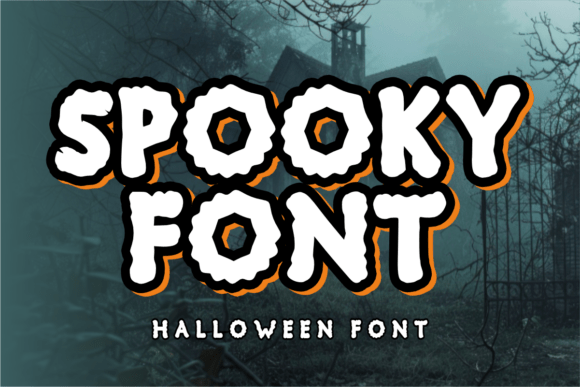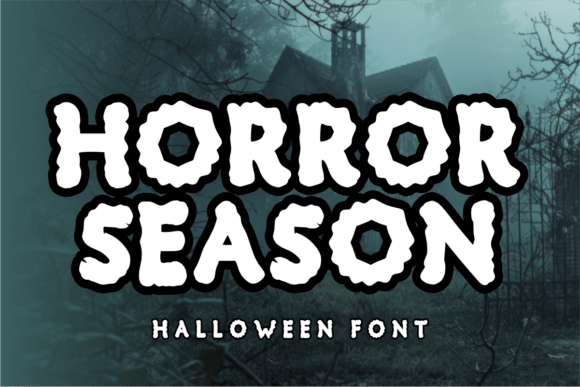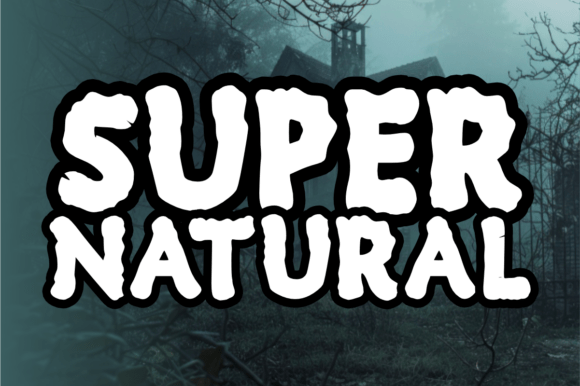
Introduction to Black Spirit Font Font
Fonts play a crucial role in design, and the Black Spirit Font font is a typeface that brings both character and versatility to any project. Whether you’re working on a branding project, a website, or a print design, the Black Spirit Font font offers a unique style that can elevate your work.
The Black Spirit Font is a spooky and playful Halloween typeface that brings eerie charm to your seasonal designs.
With its irregular, bouncy lettering and bold outline, this font is perfect for haunted houses, horror posters, party invitations, and creepy crafts The cartoonish yet creepy vibe makes it great for both kid-friendly and edgy Halloween aesthetics.
Key Features of Black Spirit Font Font
Why Choose Black Spirit Font Font?
The Black Spirit Font font is more than just a typeface – it’s a design tool that helps you communicate your message with style and clarity. Its unique character set and versatile design make it suitable for a wide range of applications, from elegant invitations to bold headlines.
With its carefully crafted letterforms and balanced proportions, the Black Spirit Font font ensures readability and visual appeal across all mediums.
What makes Black Spirit Font font special?
The Black Spirit Font font stands out with its unique design, exceptional readability, and versatility across various design applications.